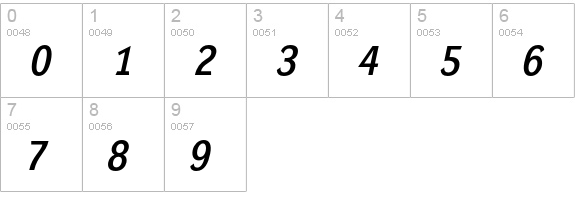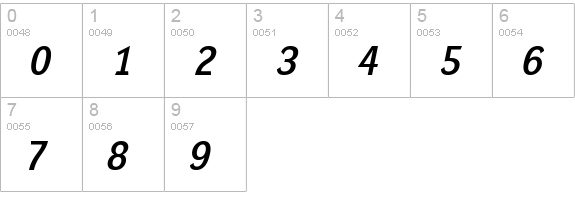
Dynamo Italic D Font Details
Dynamo Italic D is a distinctive, italic variant in the Dynamo typeface family \xE2\x80\x94 well suited to design and typography projects.
Introducing Dynamo Italic D - a sleek and modern font that exudes sophistication and style. With its dynamic curves and italicized design, this typeface is perfect for adding a touch of elegance to any project. Whether you're designing a logo, creating a poster, or crafting a website, Dynamo Italic D is sure to make a bold statement. The best part? Dynamo Italic D is completely free to download at FontsMarket.com. That's right, you can elevate your designs with this stunning font without spending a dime. Don't miss out on this opportunity to enhance your creations with Dynamo Italic D - download it today and start creating with flair!